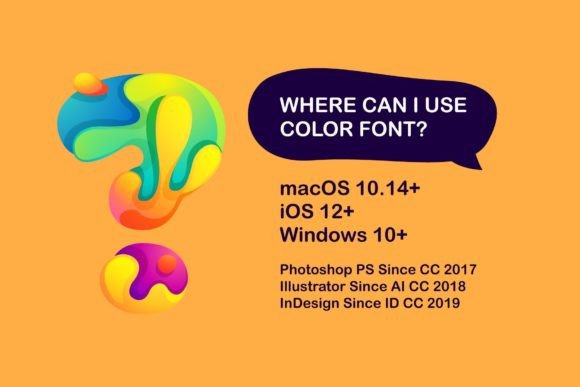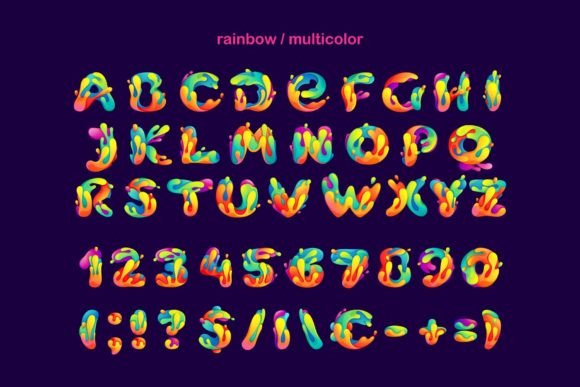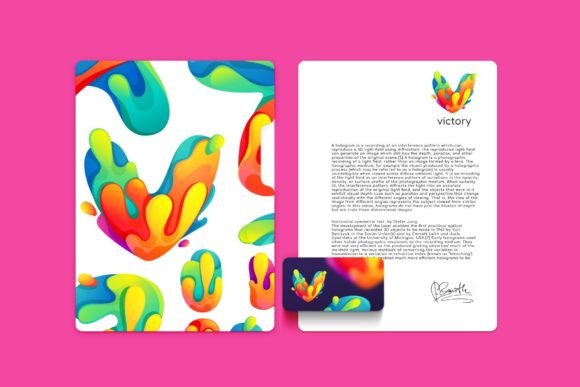
Introduction to Paint Splashes Font
Have you ever stared at a blank canvas, feeling the urge to unleash your creativity, but struggling to find the perfect tool to bring your vision to life? For designers, this is a familiar moment of inspiration, and the right font can make all the difference. That’s where the vibrant and colorful Paint Splashes Font comes in – a game-changing design resource that’s perfect for adding a splash of fun to your creative project.
This stunning font is more than just a pretty face – it’s a high-quality tool that’s designed to add an extra layer of excitement to your designs. With its bright, vivid colors and gradient effects, the Paint Splashes Font is sure to capture attention and leave a lasting impression. Whether you’re working on a children’s design, vibrant advertising, or colorful identity, this font is the perfect addition to your toolkit.
Key Features of Paint Splashes Font
- High-quality design resource ideal for creative projects and artistic expressions
- Unique splatter effect design, adding a touch of creativity and personality to any design project
Honest Review: Paint Splashes Font
I recently stumbled upon the Paint Splashes Font while searching for a unique design resource for a creative project. As a designer, I was excited to try it out and see how it would add some personality to my work.
Here’s what I liked:
- ✨ The font is perfect for adding a touch of whimsy and playfulness to a design. The splatters of paint create a fun, hand-drawn feel that’s hard to replicate with more traditional fonts.
- ⚠️ The font can be a bit tricky to read in certain contexts, particularly when used in body text. It’s best suited for titles, headings, or other design elements where readability isn’t a top priority.
- ⚠️ The paint splatters can be distracting if overused, so it’s essential to use the font judiciously and balance it with more neutral design elements.
Overall, I’m impressed with the Paint Splashes Font and would recommend it to designers looking to add some visual interest to their work. Just be mindful of its limitations and use it thoughtfully to get the best results.
Tips for Getting the Most Out of Paint Splashes Font
To get the most out of the Paint Splashes Font, experiment with different font sizes and colors to create a unique look. You can also use the font in combination with other design elements, such as images or shapes, to add visual interest to your design. With its transparent background, the font is highly versatile and can be used in a variety of creative projects.
The Paint Splashes Font is ideal for use in creative projects, such as graphics, illustrations, and digital art. It’s also perfect for use in presentations, documents, and other professional materials where a unique and eye-catching font is desired.